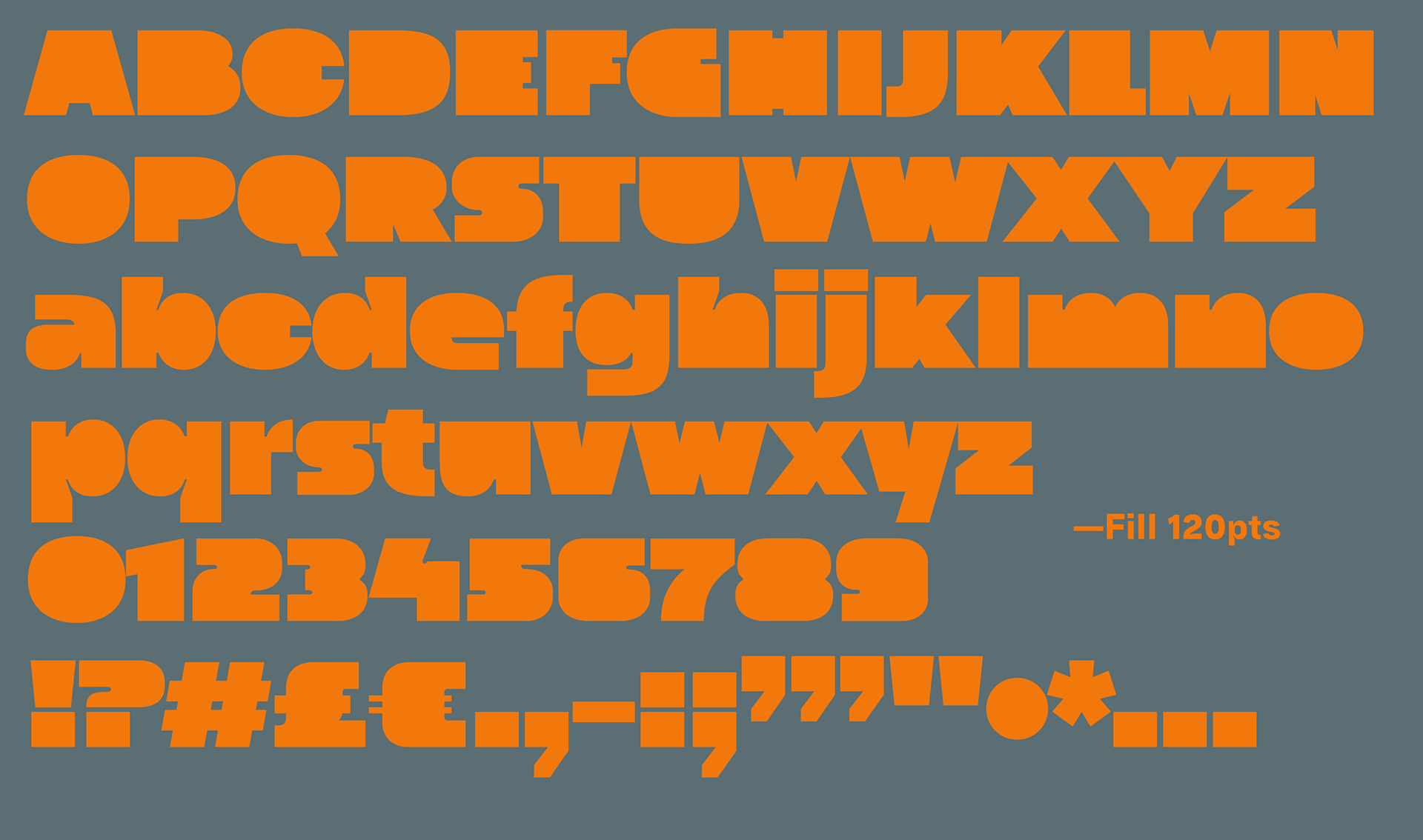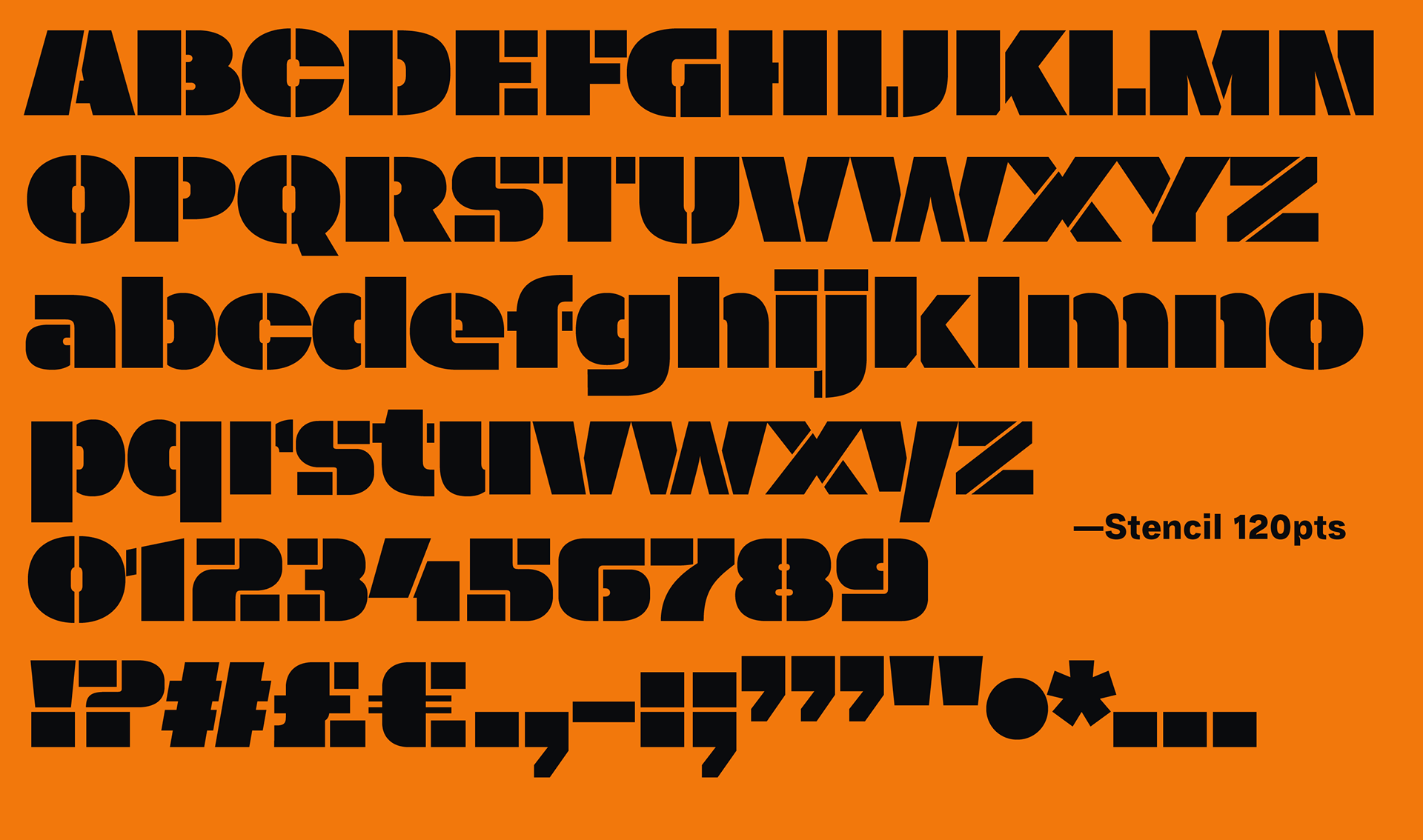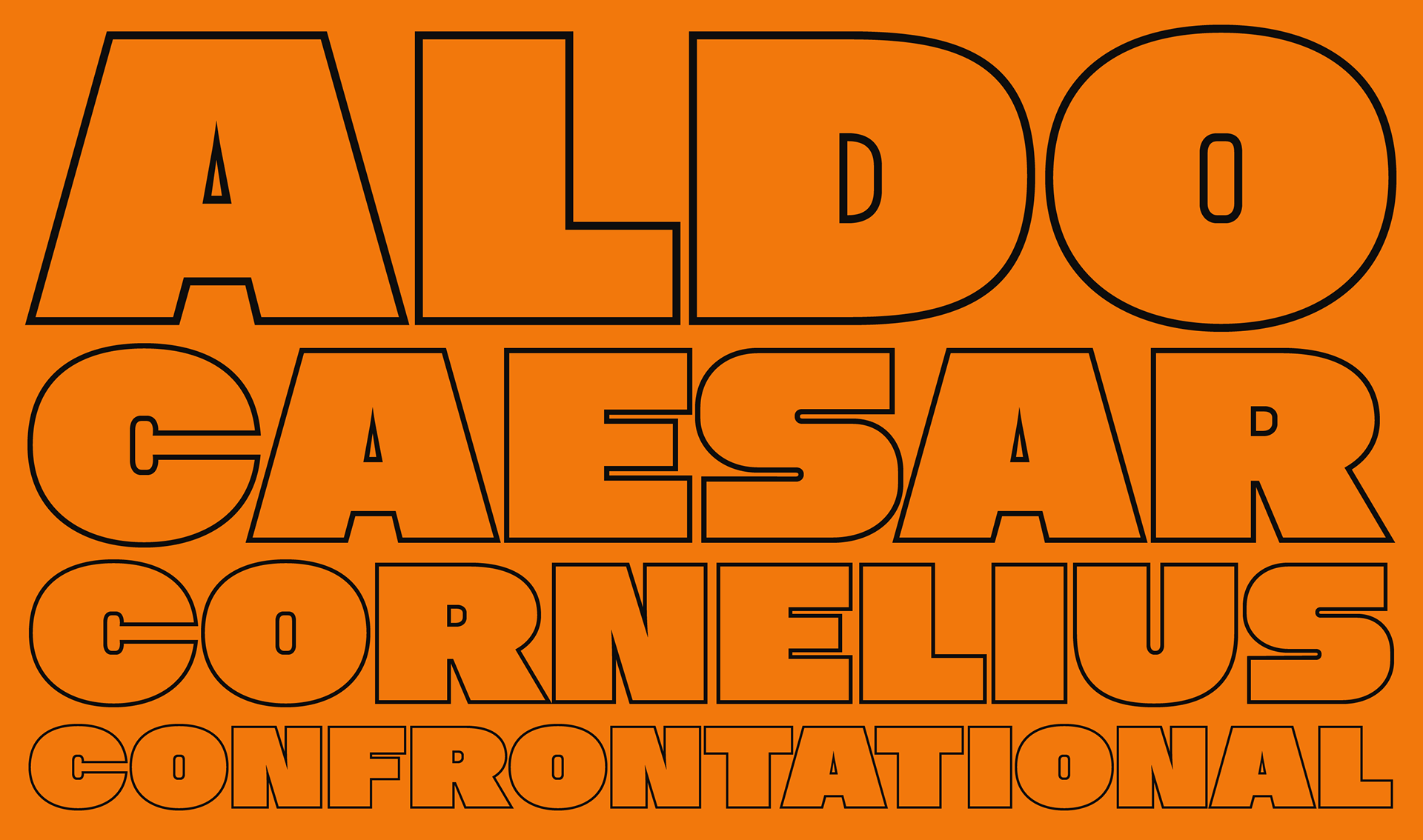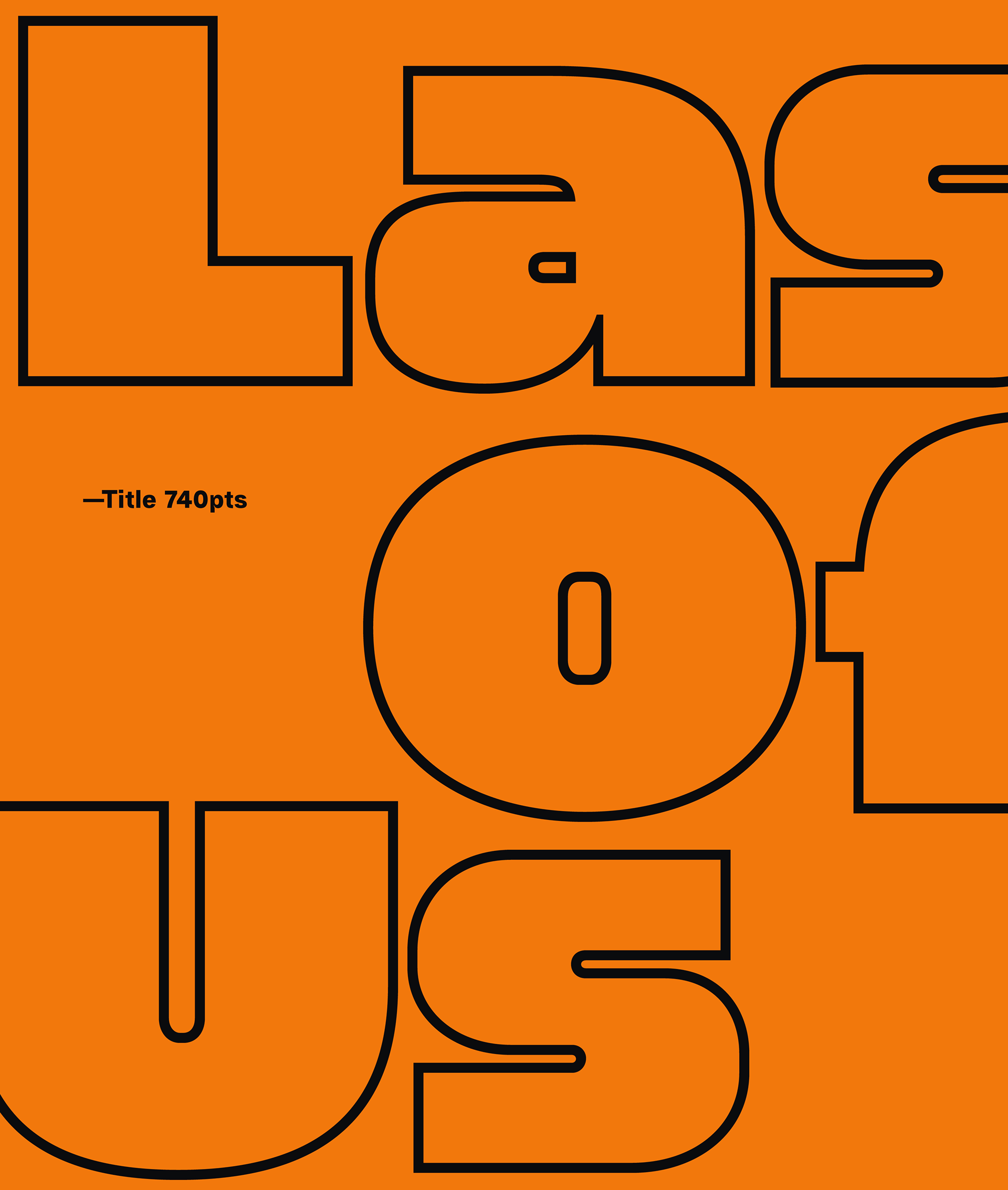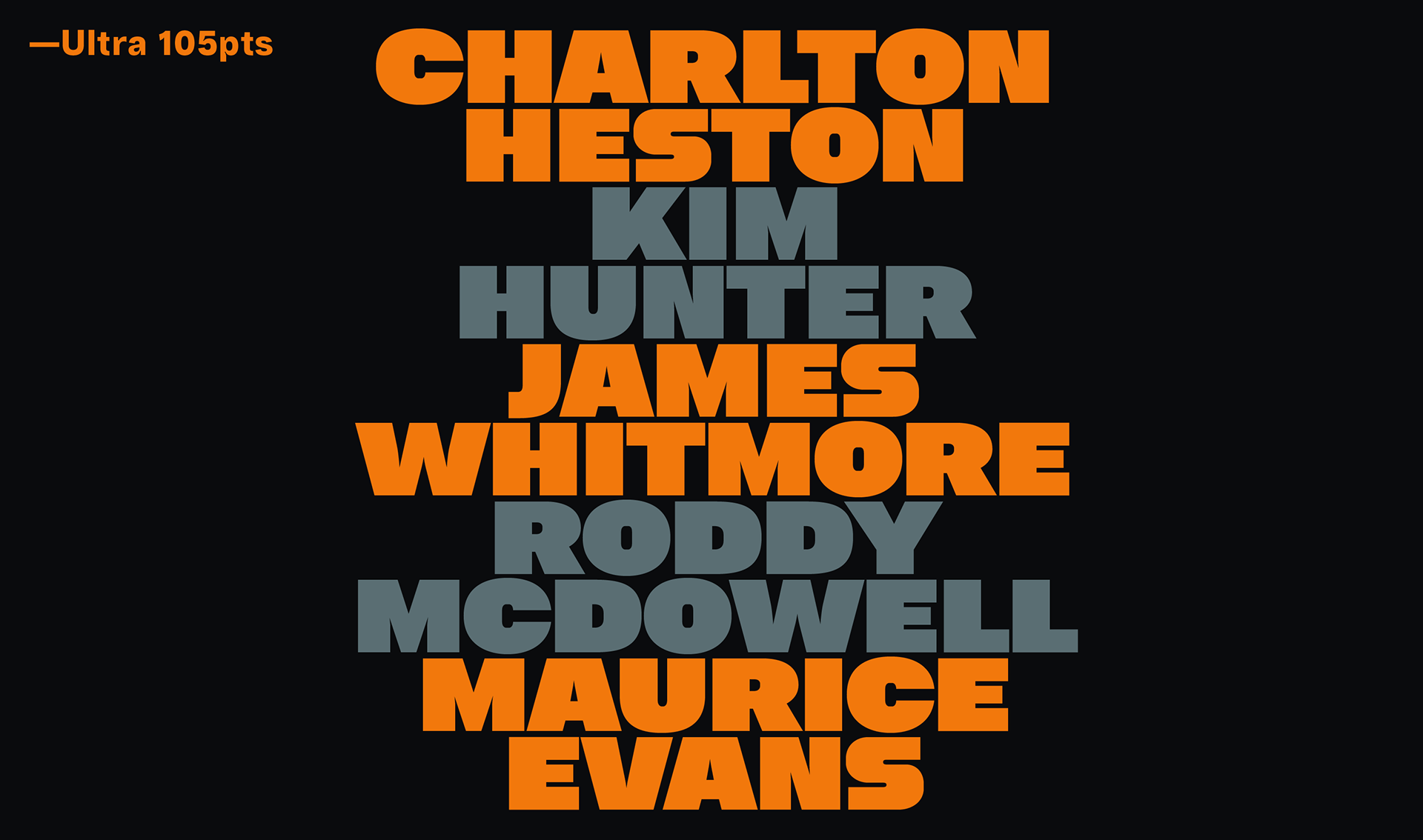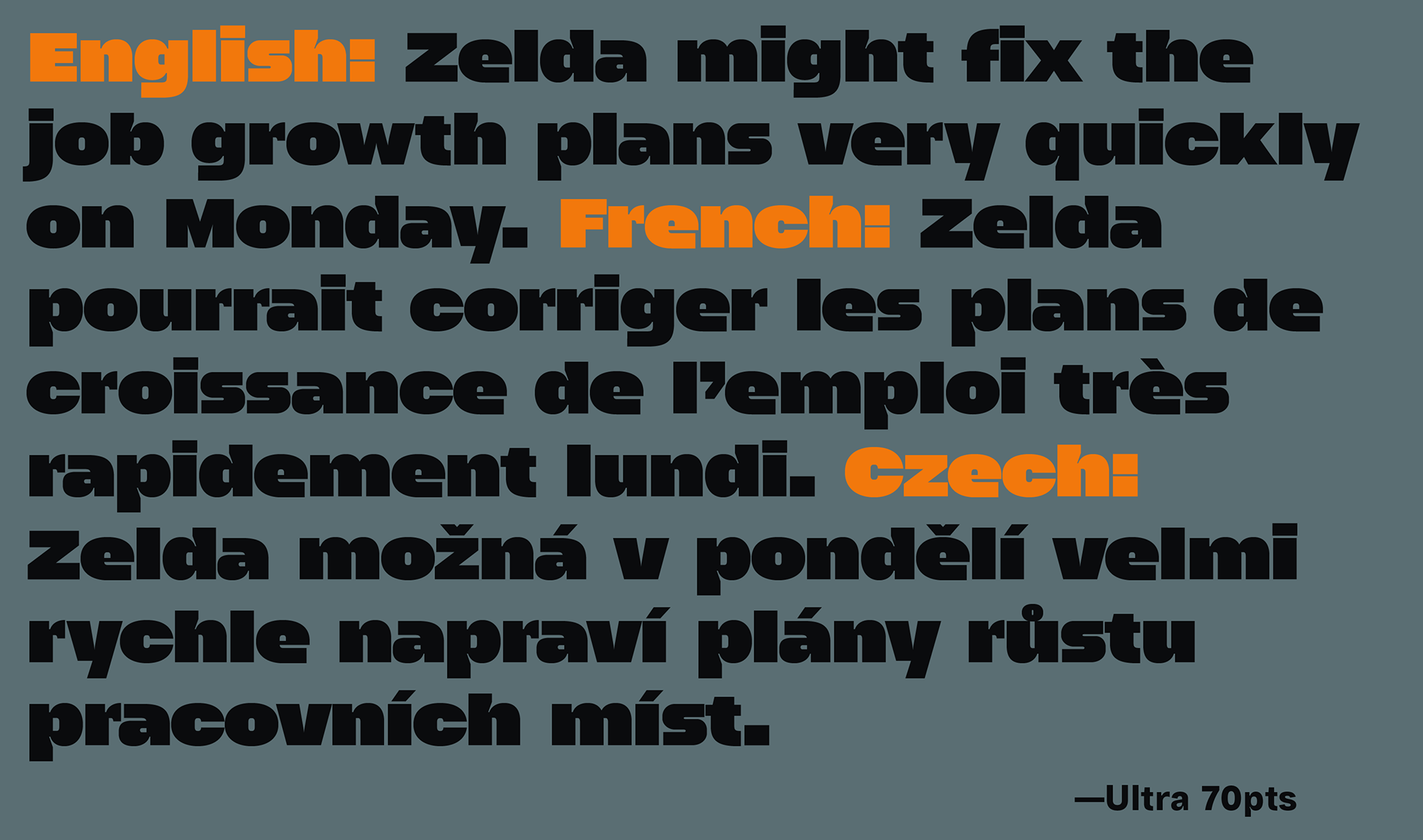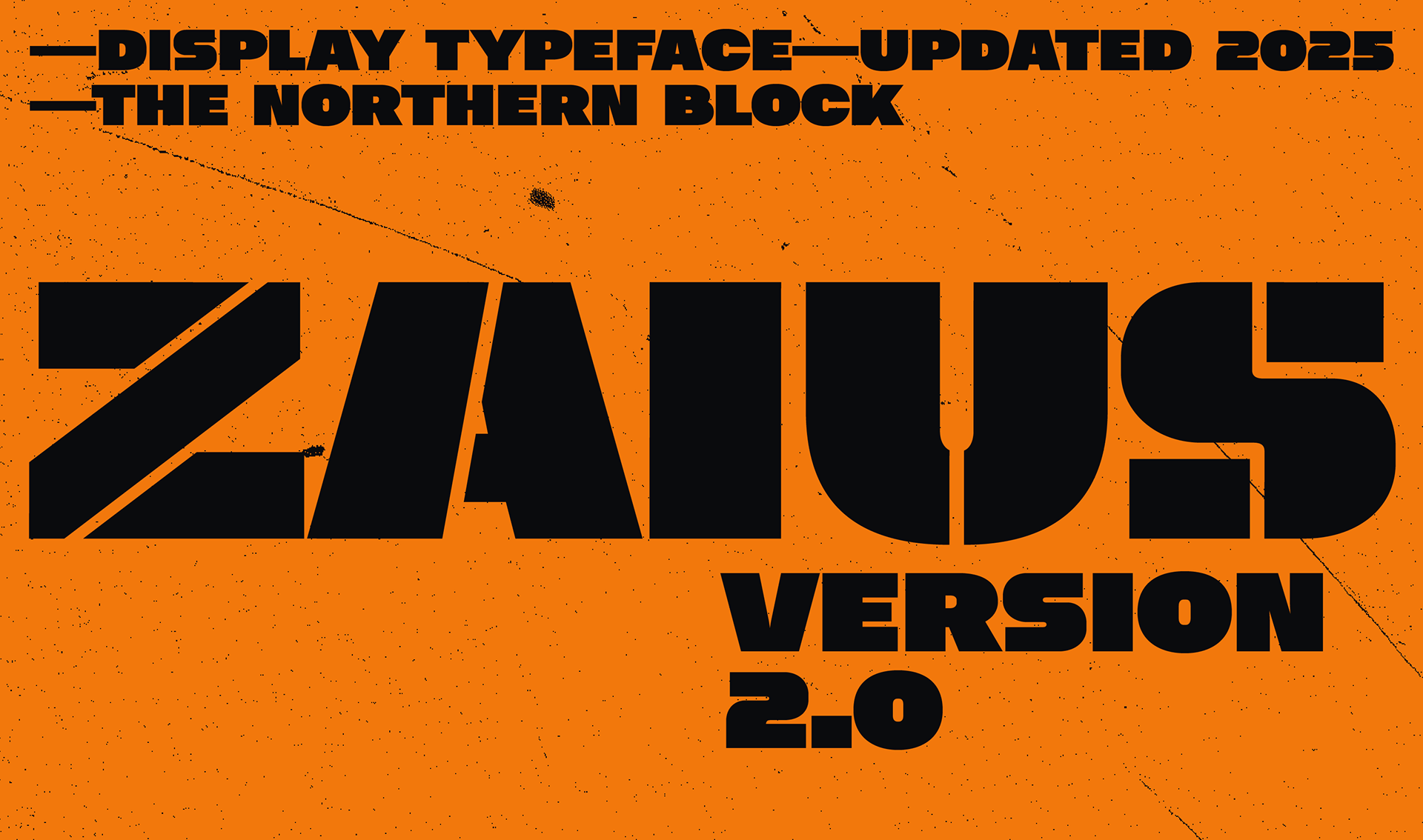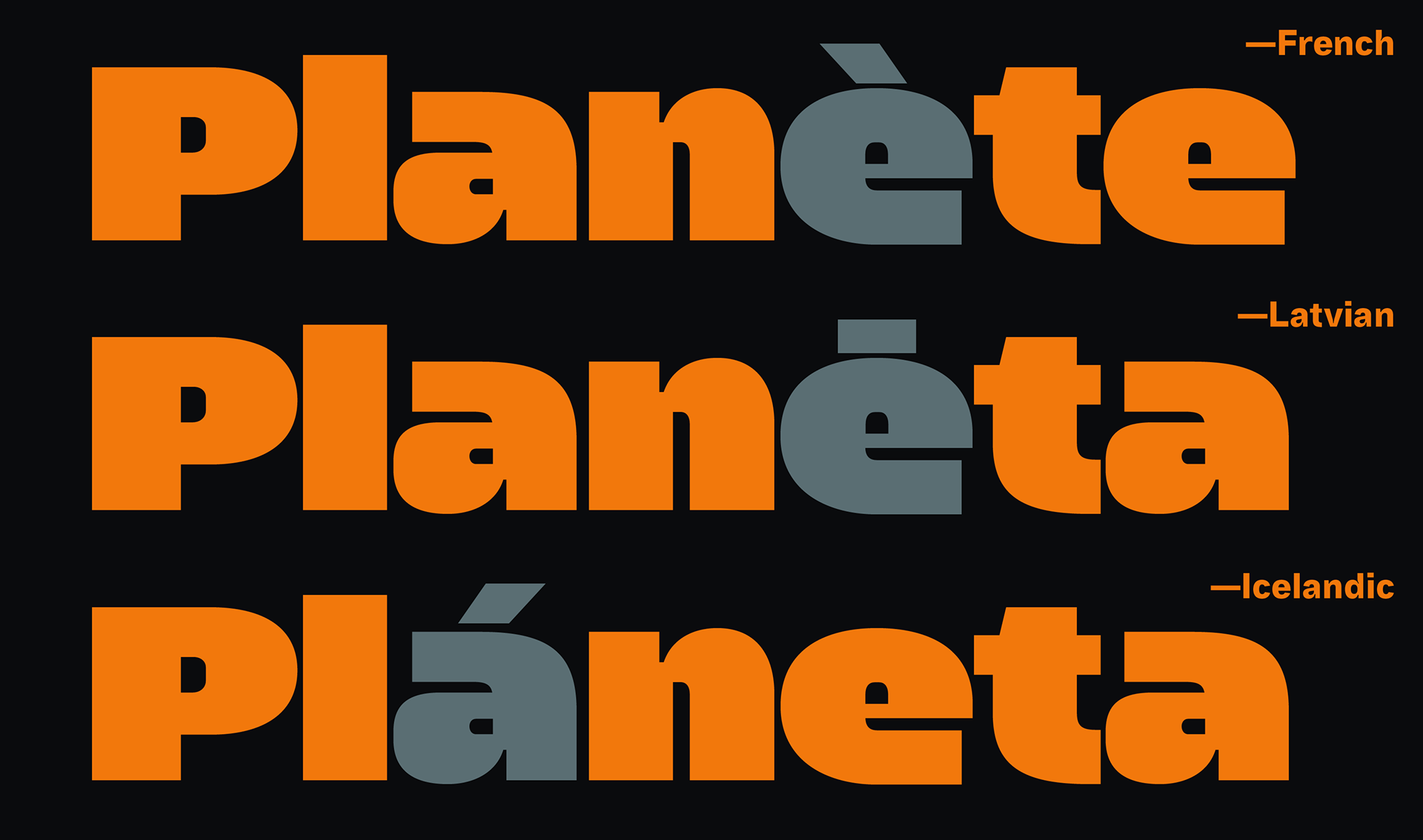
Zaius V.2.0 - Display Typeface
Zaius 2.0 is a bold sans-serif typeface inspired by the iconic lettering of Planet of the Apes (1968), originally crafted by legendary typographer Ed Benguiat. This updated version refines the bold, impactful aesthetic with technical enhancements, expanded character support, and new stylistic variations, including Black, Stencil, Outline, and Block. Now featuring over 500 characters and eight numeral variations (lining, tabular, numerators, and denominators), Zaius 2.0 offers comprehensive language support for Western, South, and Central Europe. Designed for print, web, motion graphics, and apparel, Zaius 2.0 brings a powerful, versatile typographic solution for modern design.